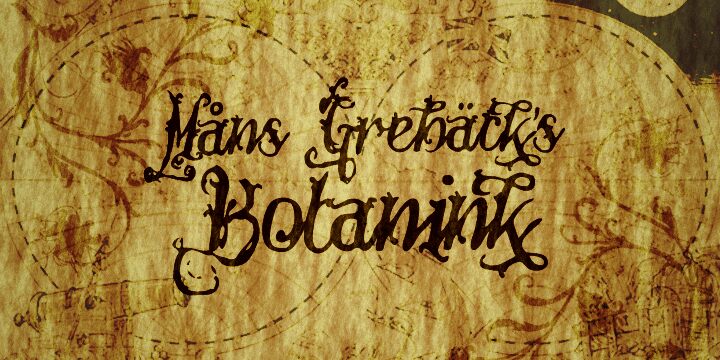
Botanink by Måns Grebäck is a free ornate calligraphic font with dramatic, curling strokes and a dark, theatrical silhouette. Its letters twist into leaflike hooks, loops, and inkblot forms, with lively changes in stroke width.
Its gothic storybook character suits fantasy publishing and theatrical posters. It can also shape perfume packaging or music merchandise with an eccentric, hand-inked edge. The tangled ornament feels especially at home with enchanted forests, strange folklore, and other dark fairy-tale subjects.